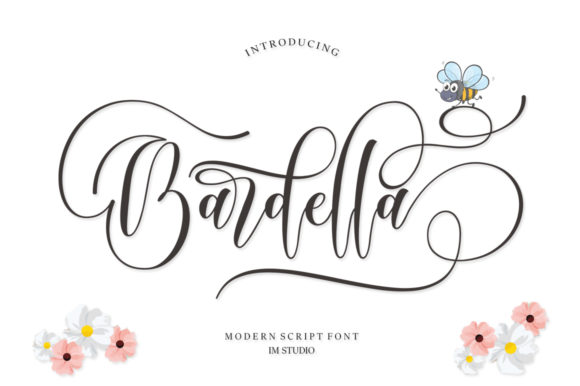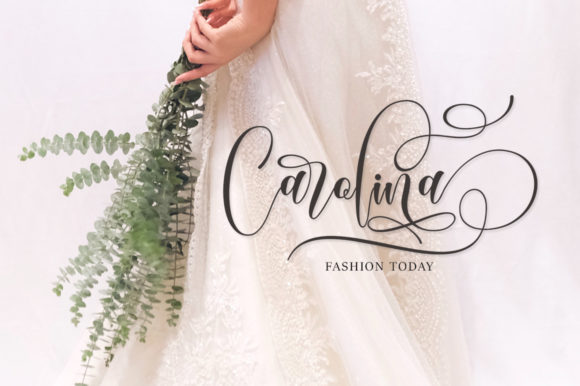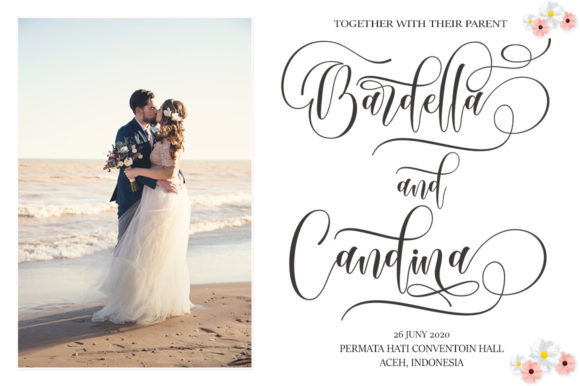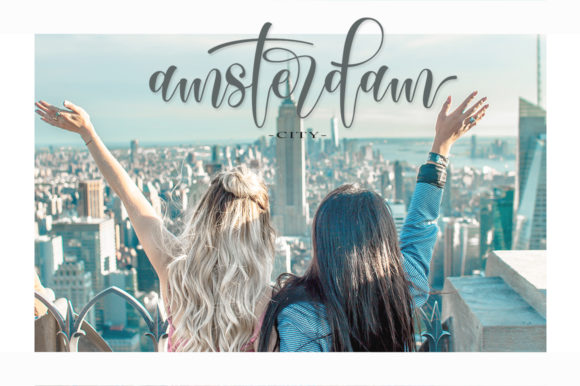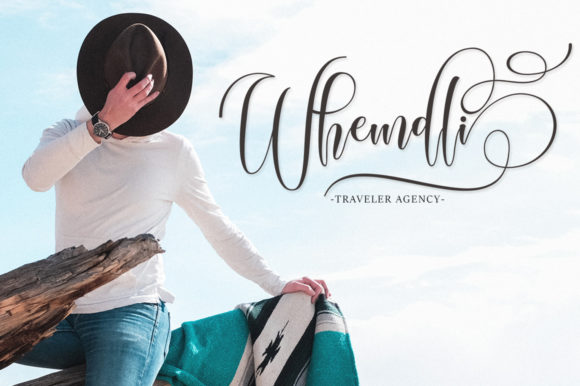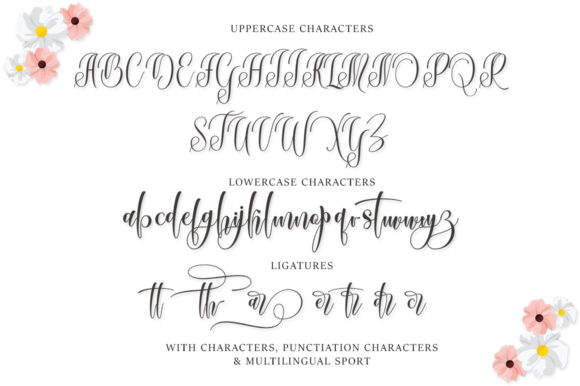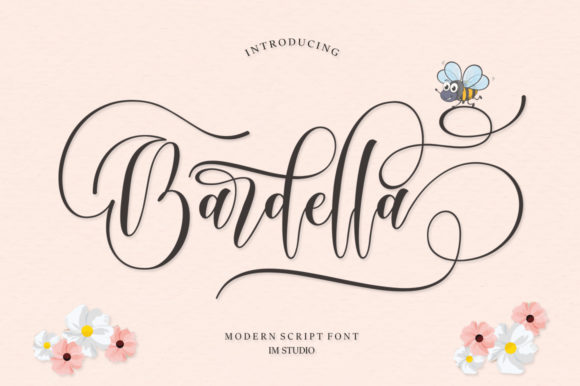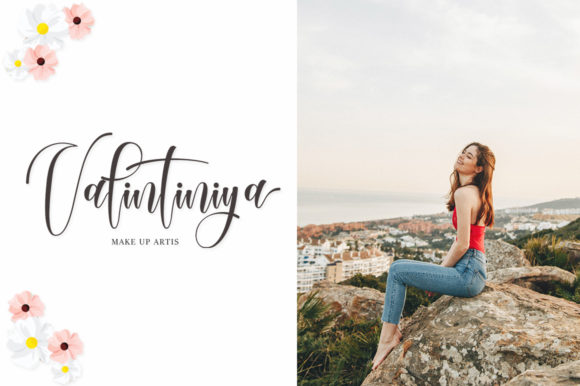
Bardella Font
About Bardella Font
Bardella is a beautiful script font, carefully handcrafted to become a true favorite. This enchanting font will turn any creative idea into a true standout.